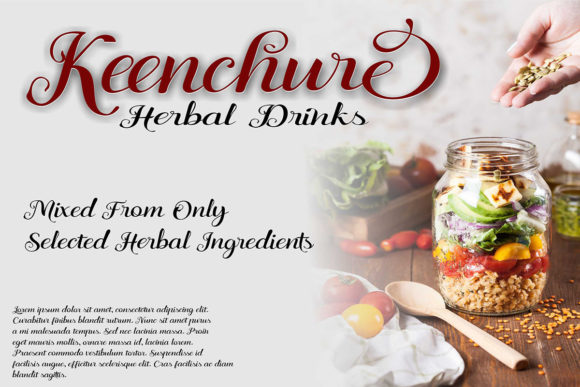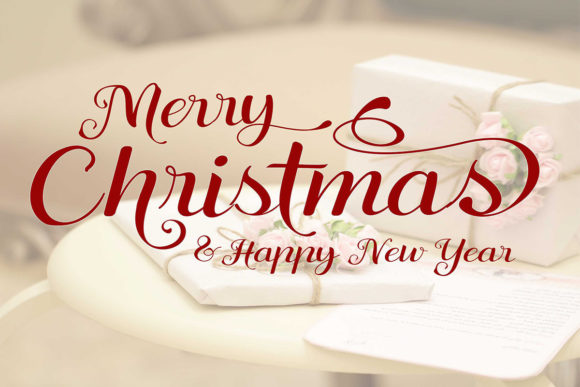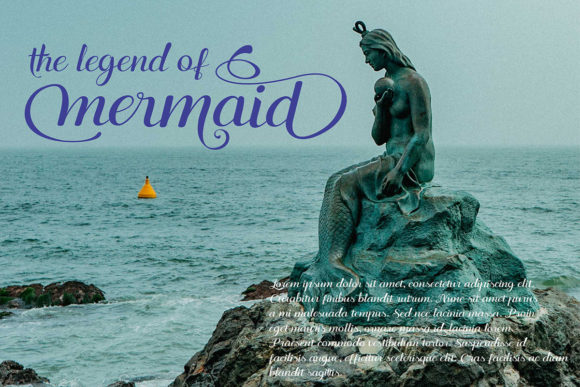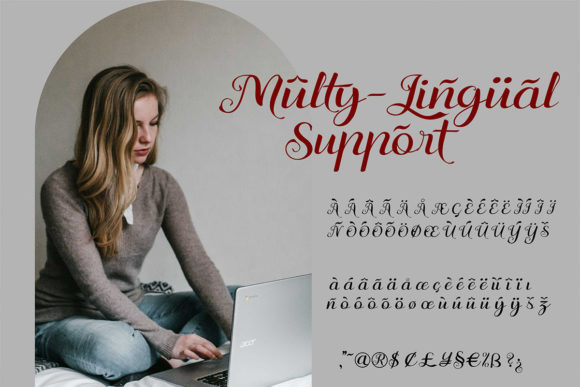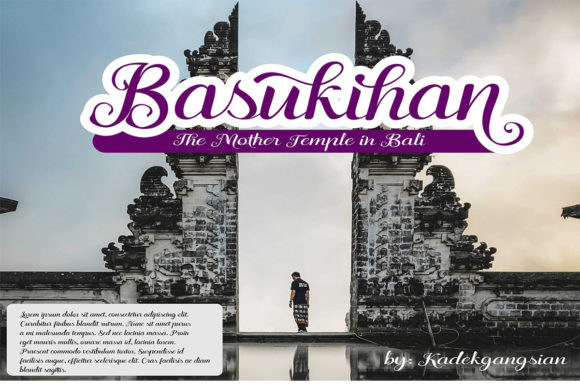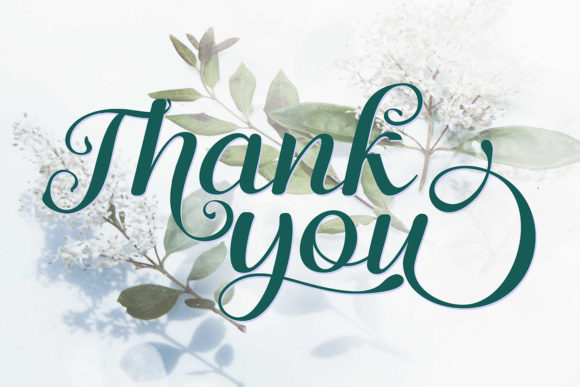
Introduction to Orayashi Font
Orayashi is a beautiful and refined script font.
It has a classy, elegant and modern look that can be used for logos, branding, invitations, stationery, wedding designs, social media posts, and much more Orayashi is PUA encoded which means you can access all of the glyphs and swashes with ease.
Key Features of Orayashi Font
Why Choose Orayashi Font?
Orayashi Font offers exceptional quality and versatility, making it a valuable addition to your design toolkit. Whether you’re creating for personal projects or commercial use, Orayashi Font delivers professional results.